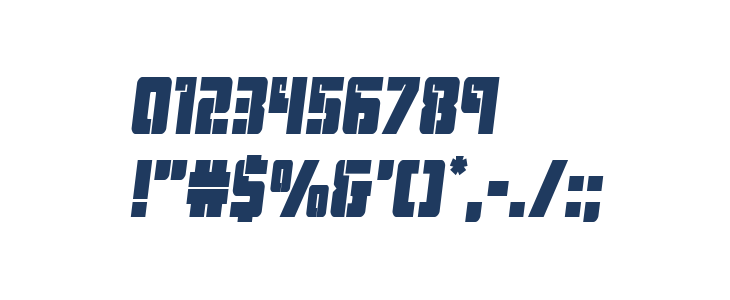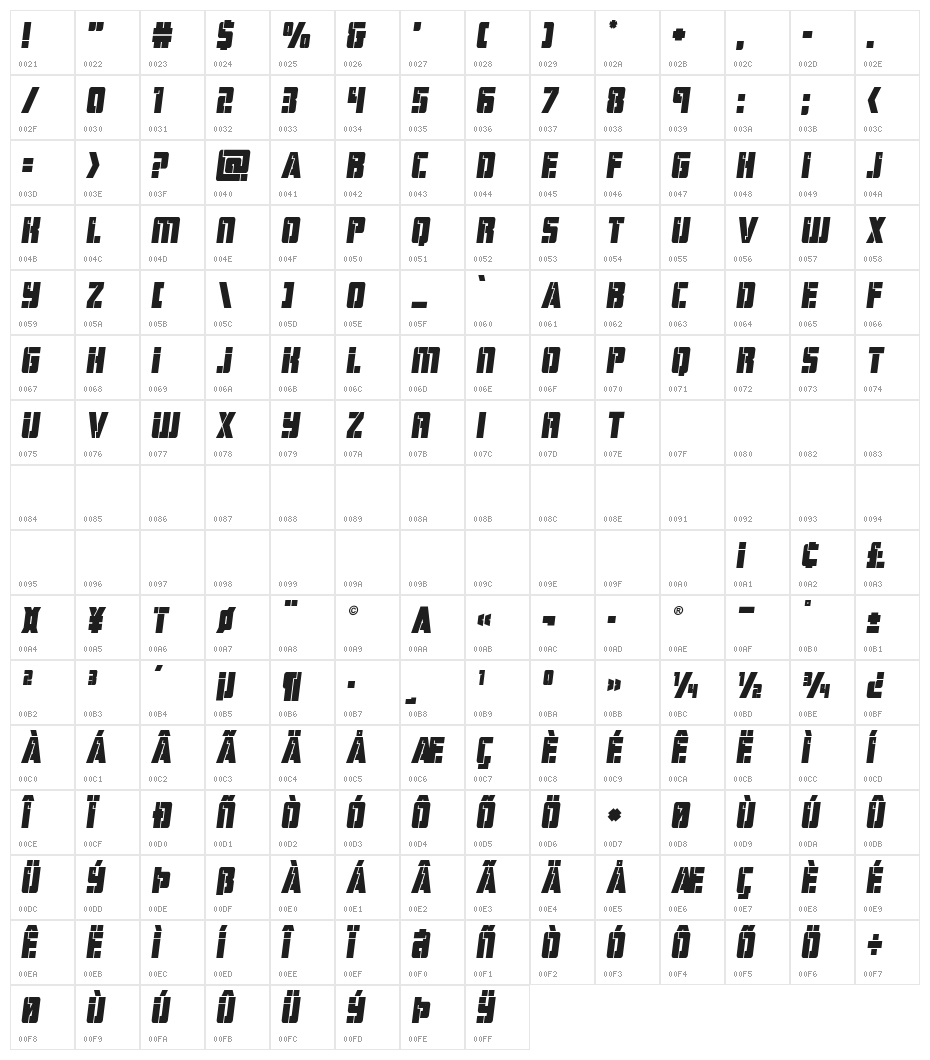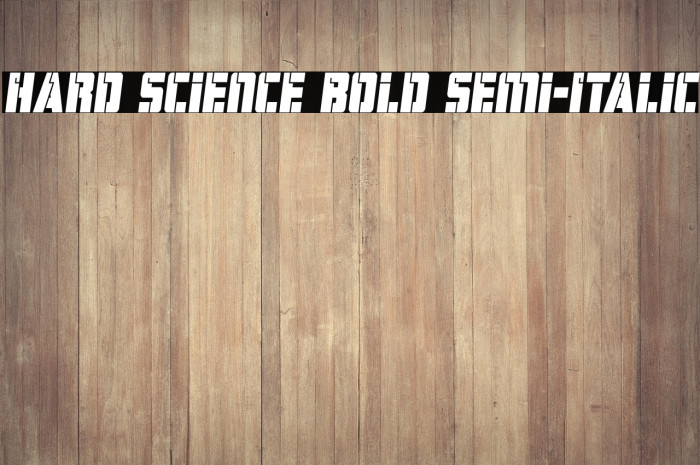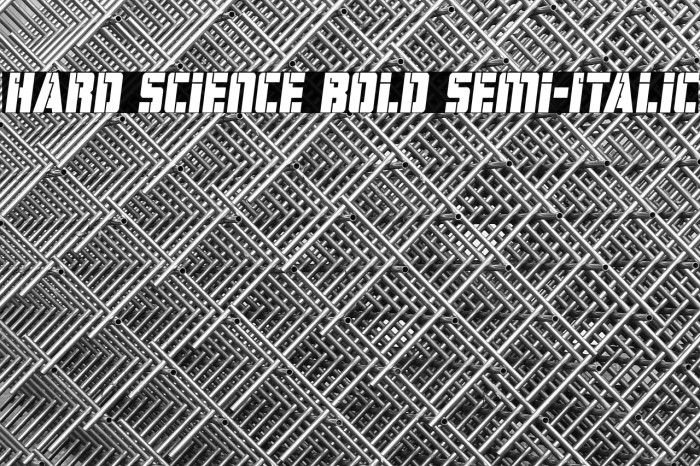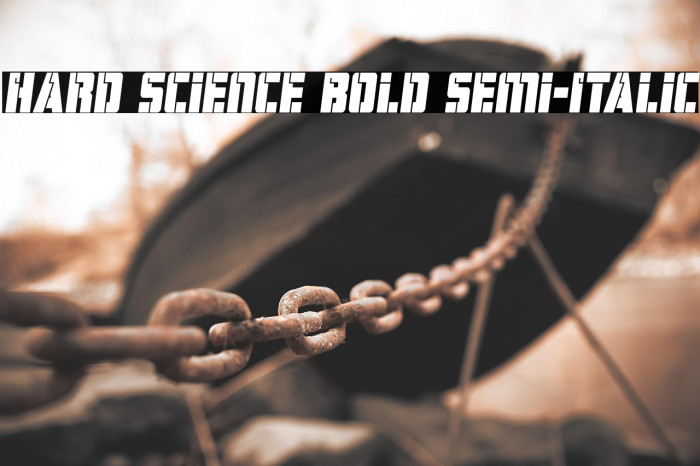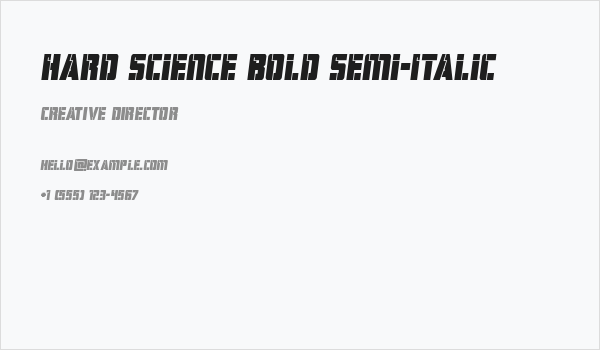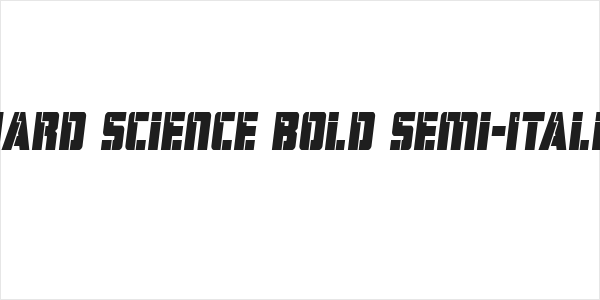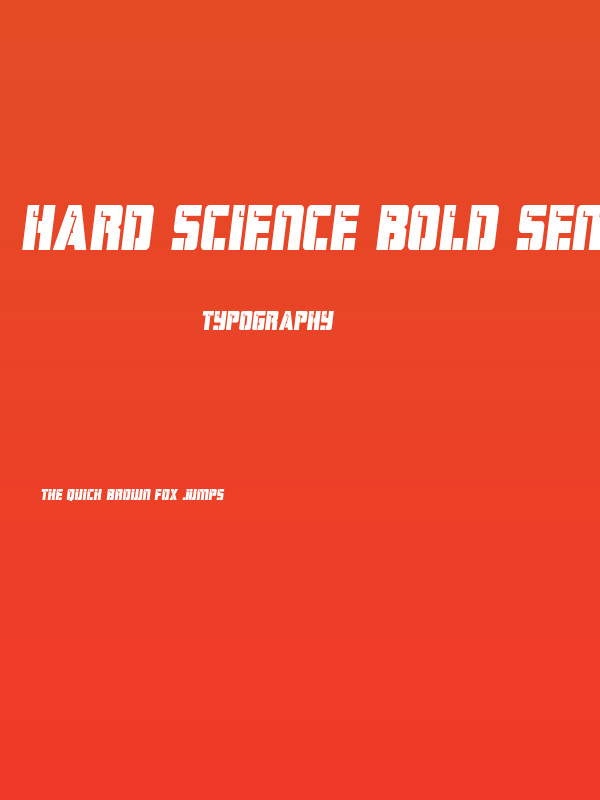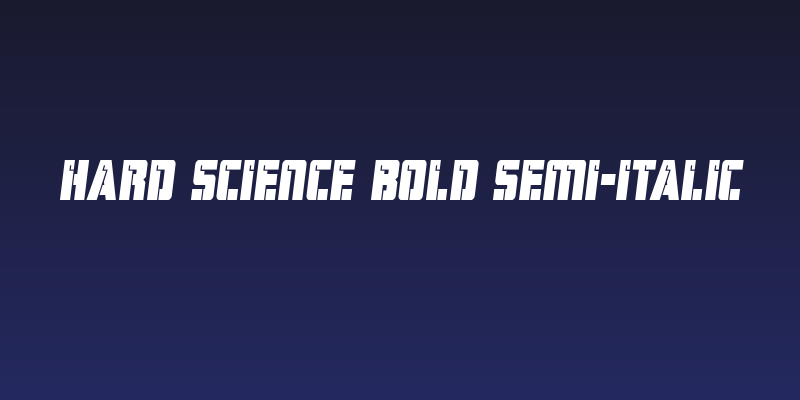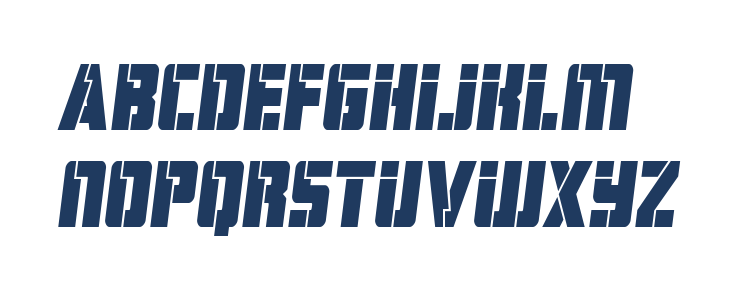
Hard Science Bold Semi-Italic Font
Hard Science Bold Semi-Italic Description
This font features a bold and semi-italic style with a futuristic and industrial aesthetic. The characters are heavily weighted with a strong presence, making them ideal for impactful designs. The angular cuts and geometric shapes give it a modern and edgy look, while the semi-italic slant adds a dynamic feel. The uppercase and lowercase letters maintain a consistent style, with numbers and special characters following suit. This font is perfect for projects that require a bold statement, such as technology branding, sports team logos, or sci-fi themed designs.
| Proposed Projects | Ideal for technology branding, sports logos, sci-fi themes, and impactful headlines. |